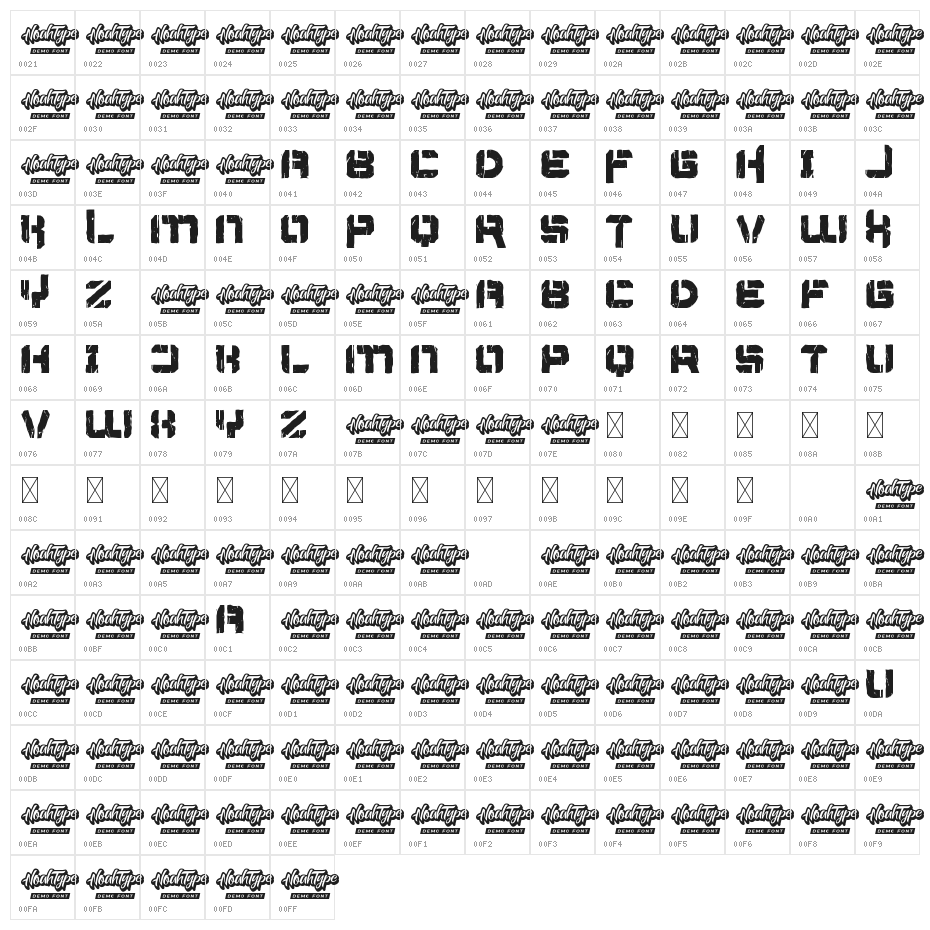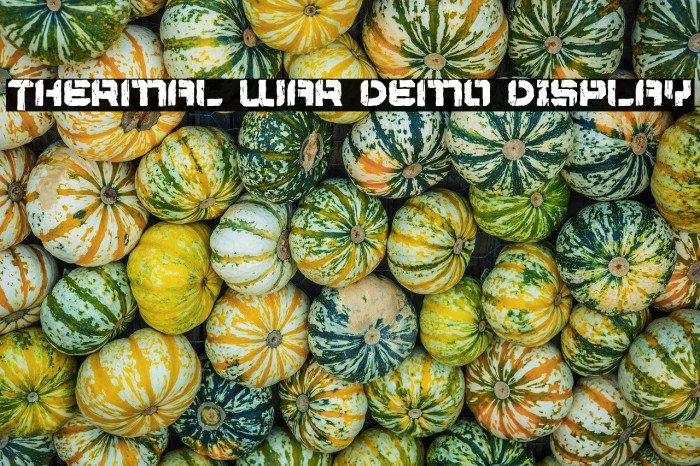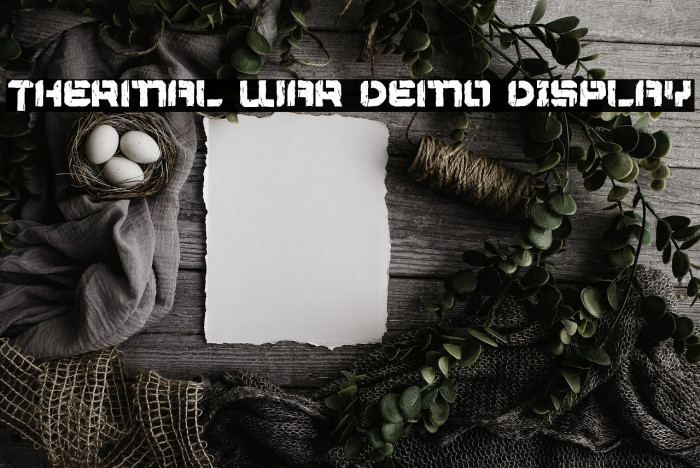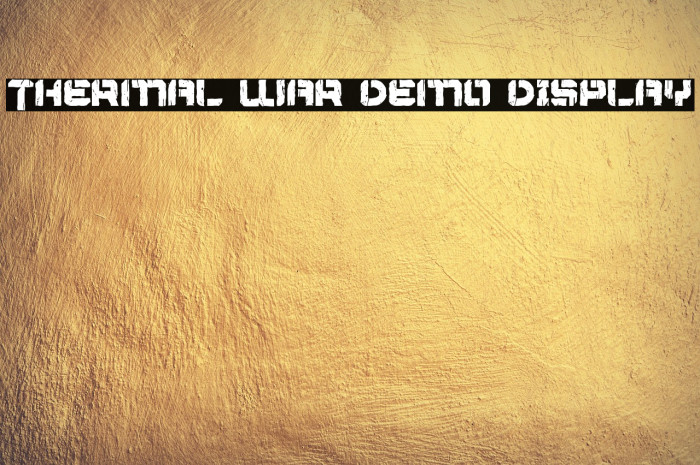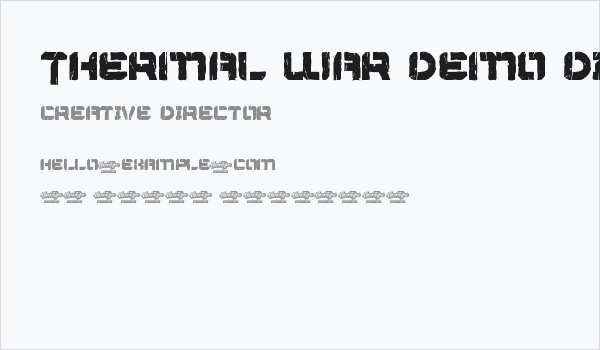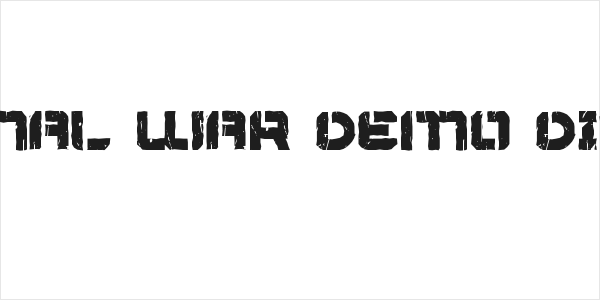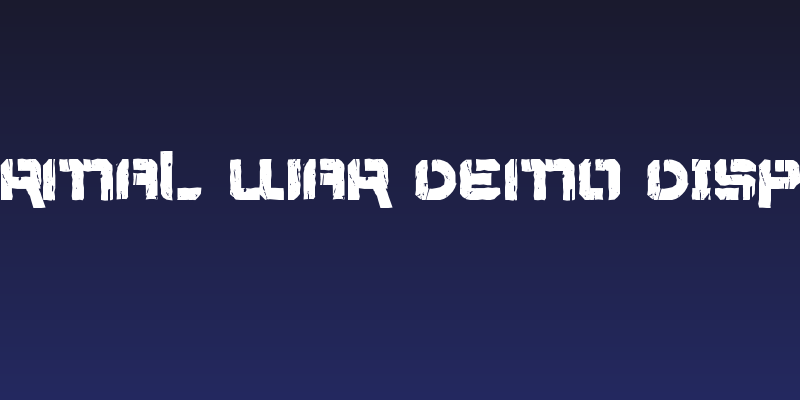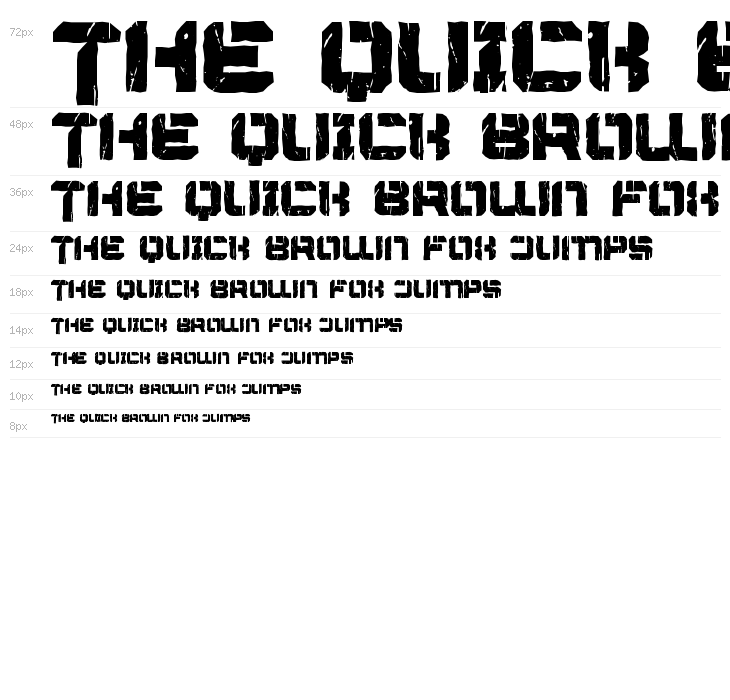
Thermal War Demo Display Font
Thermal War Demo Display Description
This font features a rugged, distressed appearance, reminiscent of military or industrial themes. The characters are bold and blocky, with a stencil-like quality that suggests strength and durability. The distressed texture adds a sense of wear and age, making it ideal for projects that require a gritty, authentic look. The uppercase letters are uniform in height, while the overall design maintains a consistent width, contributing to its bold presence. This font is particularly suitable for designs that aim to convey toughness, resilience, or a vintage military aesthetic.
| Proposed Projects | Ideal for military-themed posters, video game titles, industrial branding, and vintage-style merchandise. |